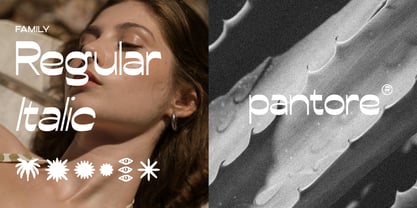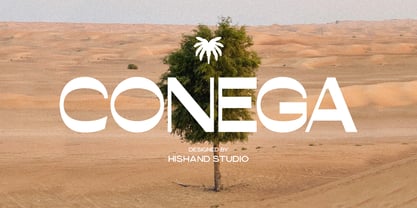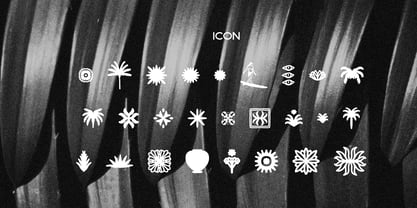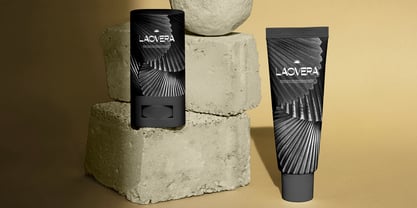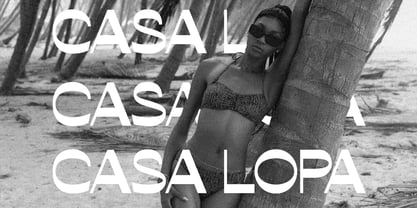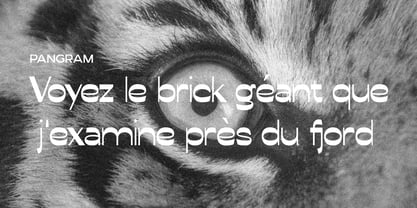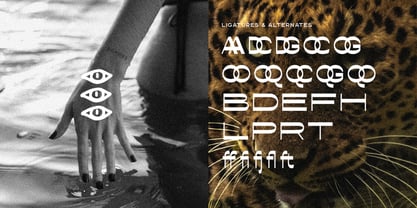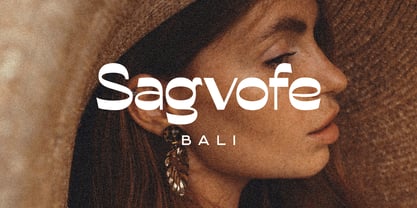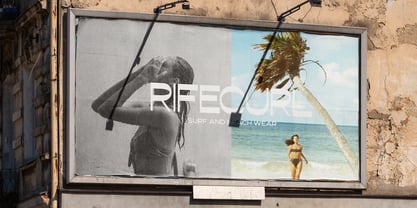
Conega
by Hishand Studio
The Conega Font Family was designed by Putu Dody Permana and published by Hishand Studio. Conega contains 3 styles and family package options. More about this family
Conega is a modern sans serif display font designed to bring a clean, aesthetic, and highly contemporary feel to any visual project. With its refined geometry and smooth, balanced proportions, Conega exudes a sense of confidence and simplicity that instantly elevates your design. Every character is crafted to create elegant presence, making it an ideal choice for brands that want to appear stylish, fresh, and professional. The font’s minimalist construction ensures excellent readability while maintaining a distinct personality. Its sharp edges, subtle curves, and spacious letterforms work beautifully in both large and small sizes, making Conega perfect for logos, branding, marketing materials, packaging, and digital content. Whether you’re building a luxury identity, a modern startup brand, or a clean editorial layout, Conega offers the versatility and visual impact needed to make your message stand out. Complete with - ligatures - alternates - regular - italic - icon - kerning - multilingual support
Designers: Putu Dody Permana
Foundry: Hishand Studio